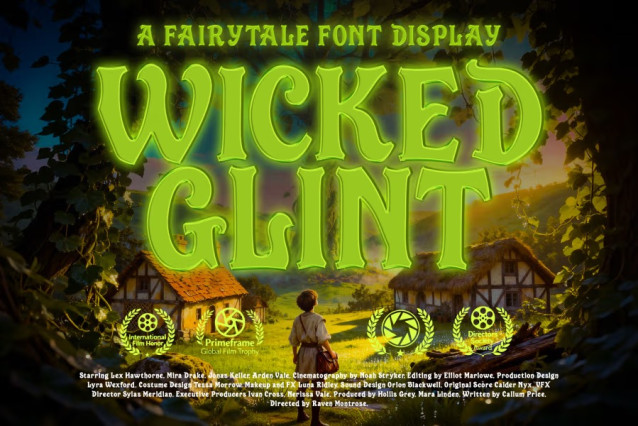
Wicked Glint Font
Wicked Glint Font is a magical fairytale display font with glowing, enchanted curves and whimsical serif details, perfect for fantasy titles, storybook covers, and mystical branding.
Wicked Glint is a captivating fairytale display font inspired by enchanted forests, glowing spellbooks, and mystical adventures. Designed with bold, whimsical serifs and subtly irregular strokes, this font brings a sense of magic and wonder to every letter. Its glowing, ethereal presence makes it ideal for fantasy movie posters, fairytale book covers, children’s illustrations, game titles, and any creative project that needs a touch of enchantment.
Each character is crafted with storybook charm curved accents, playful proportions, and a handcrafted feel reminiscent of classic fantasy lettering. Wicked Glint stands out beautifully in large display settings, offering both readability and a powerful magical atmosphere. Whether you’re designing mystical branding, creating promotional material for fantasy events, or illustrating magical worlds, this font brings immersive storytelling energy to your work.